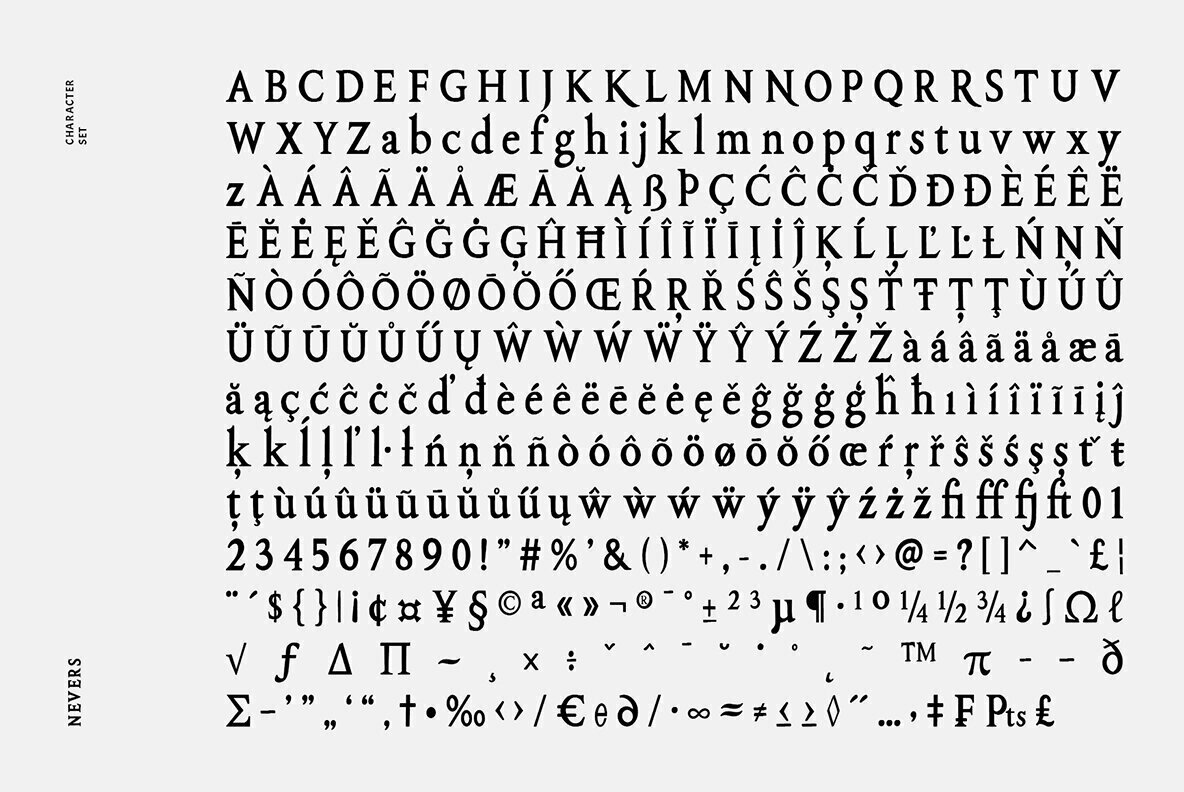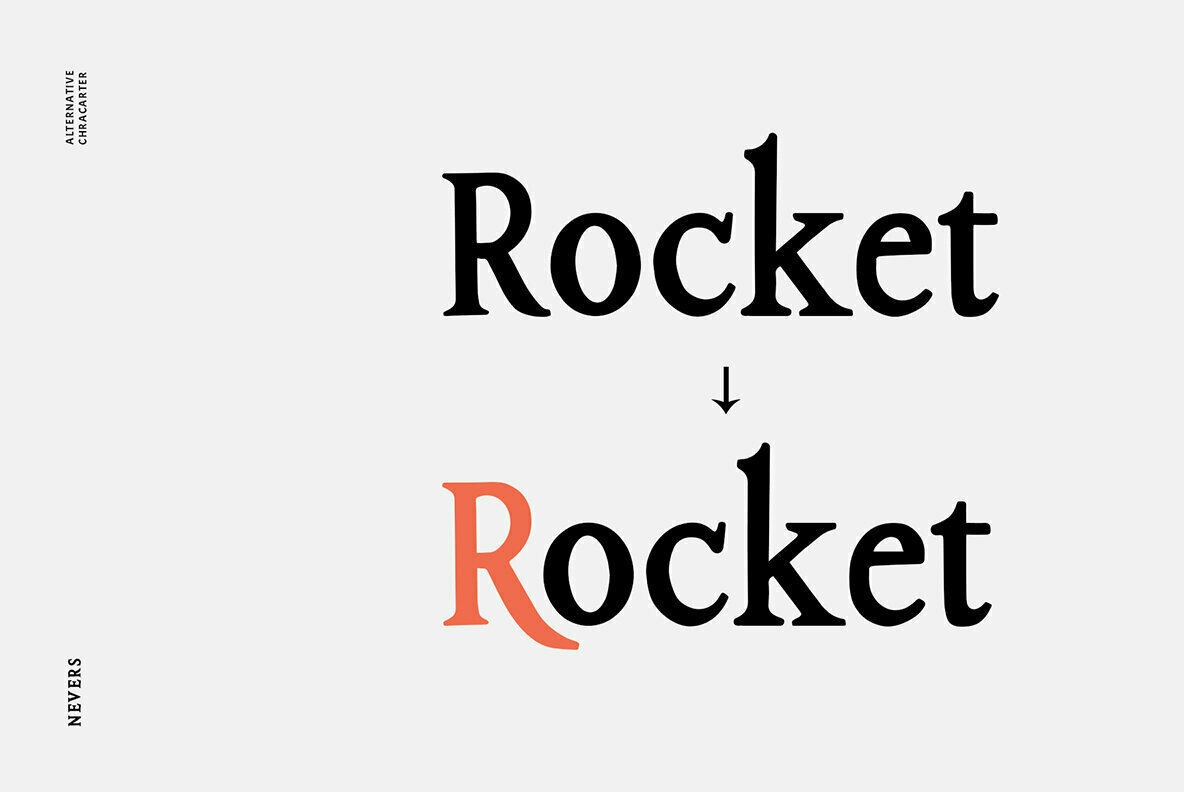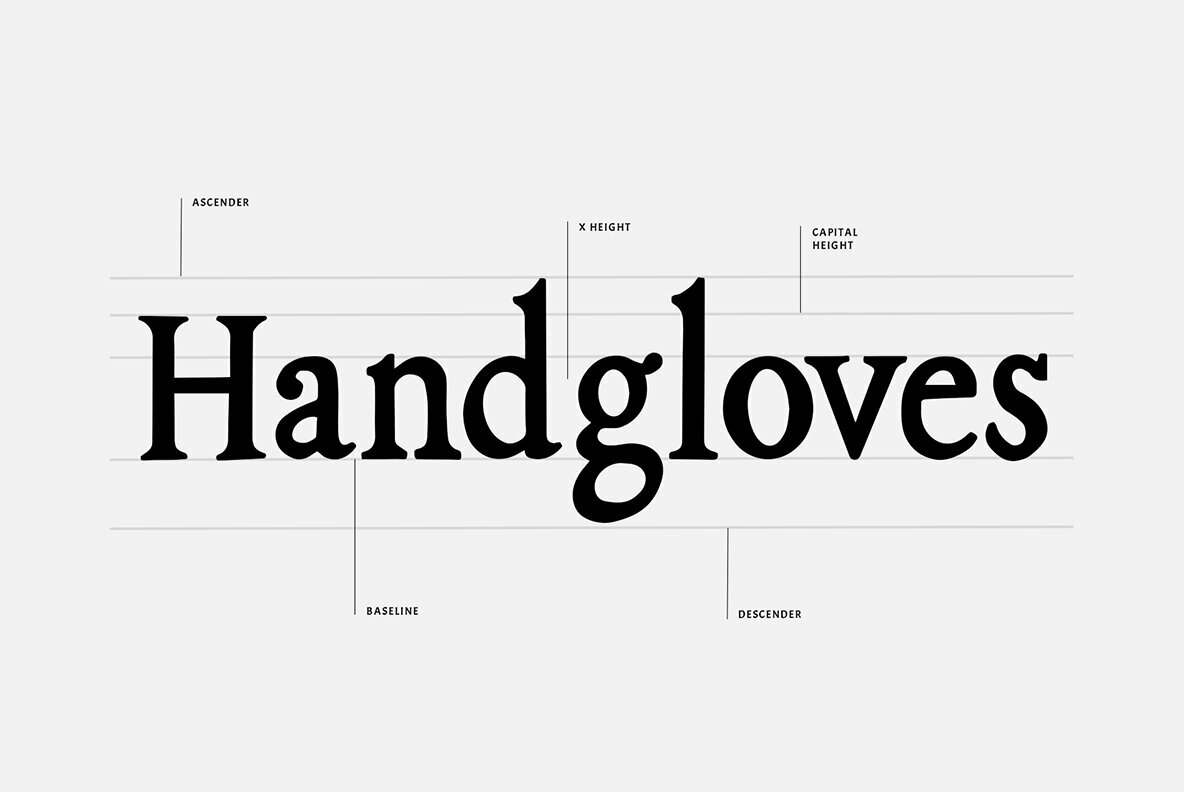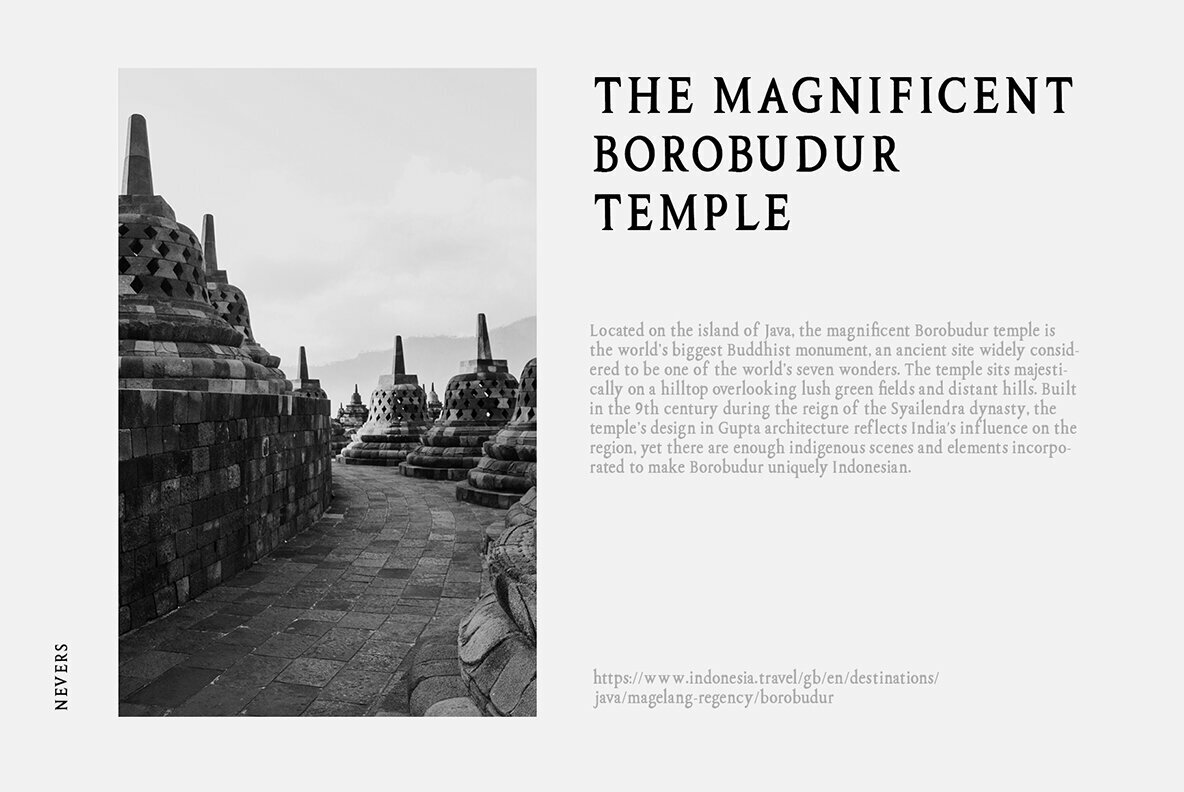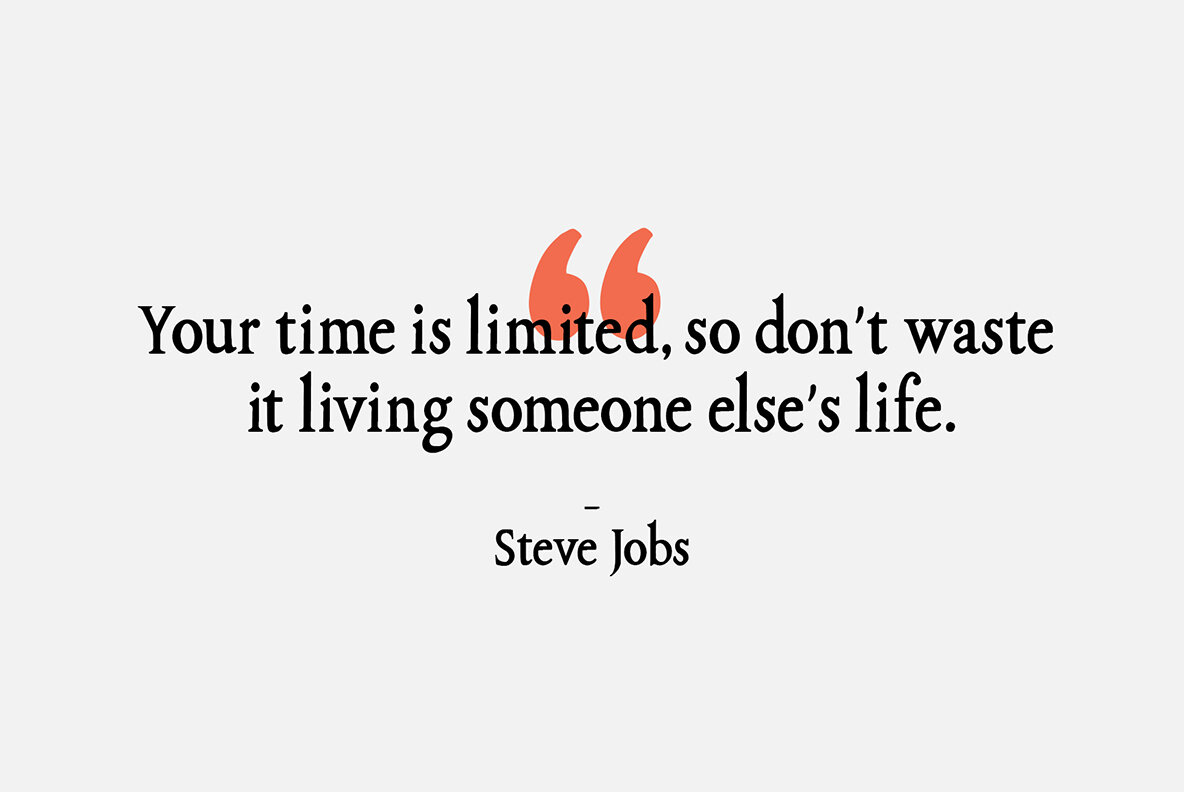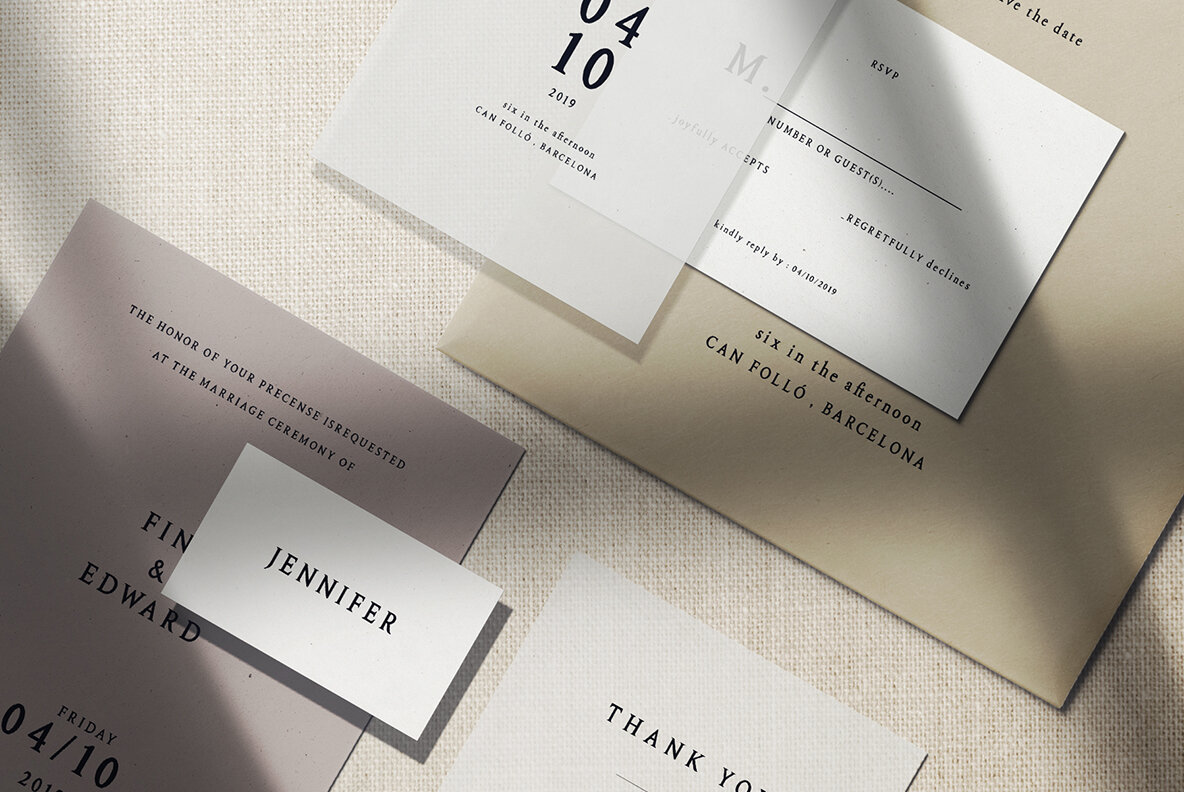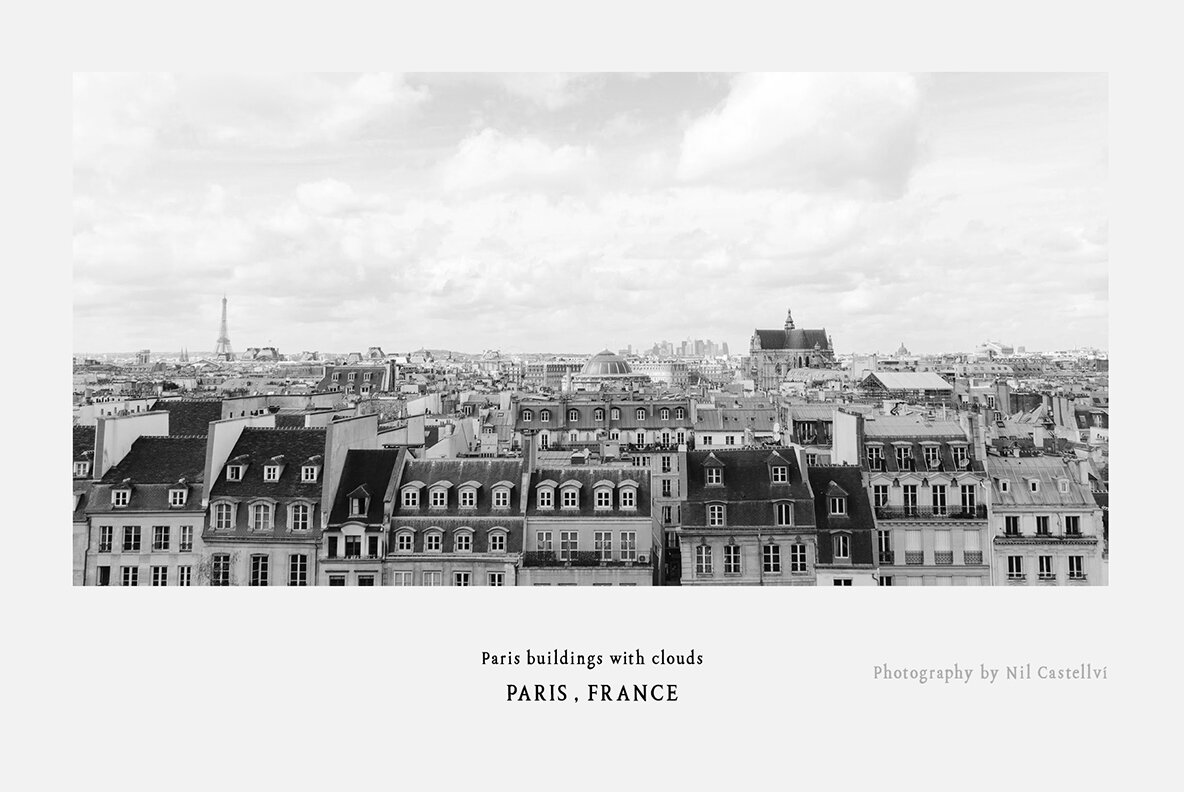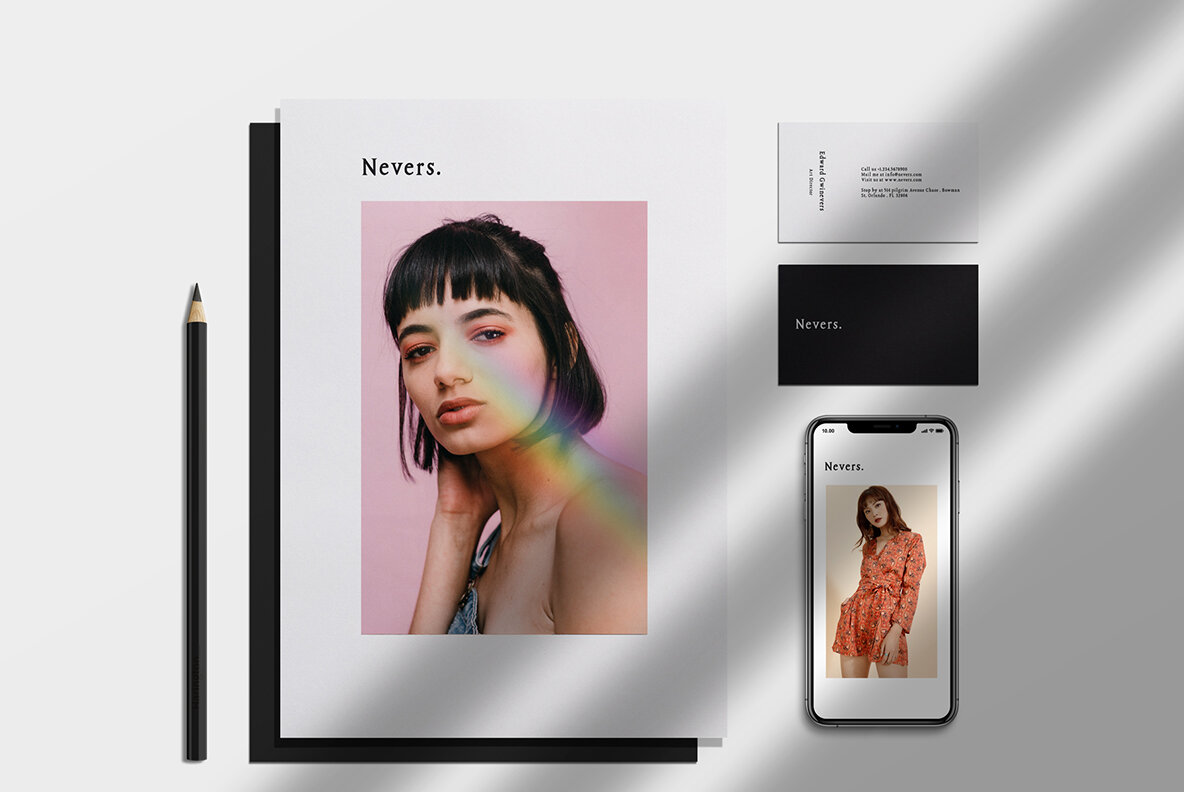
Nevers Font
Nevers
The Nevers font by Emyself Design offers an elegant yet fluid serif style that can effortlessly complement a wide range of design projects. Ideal for posters, logos, branding, and magazine layouts, its unique character is both sophisticated and approachable, making it a valuable addition to any designer's toolkit. Features:Nevers: A Versatile Serif for Elegant Design